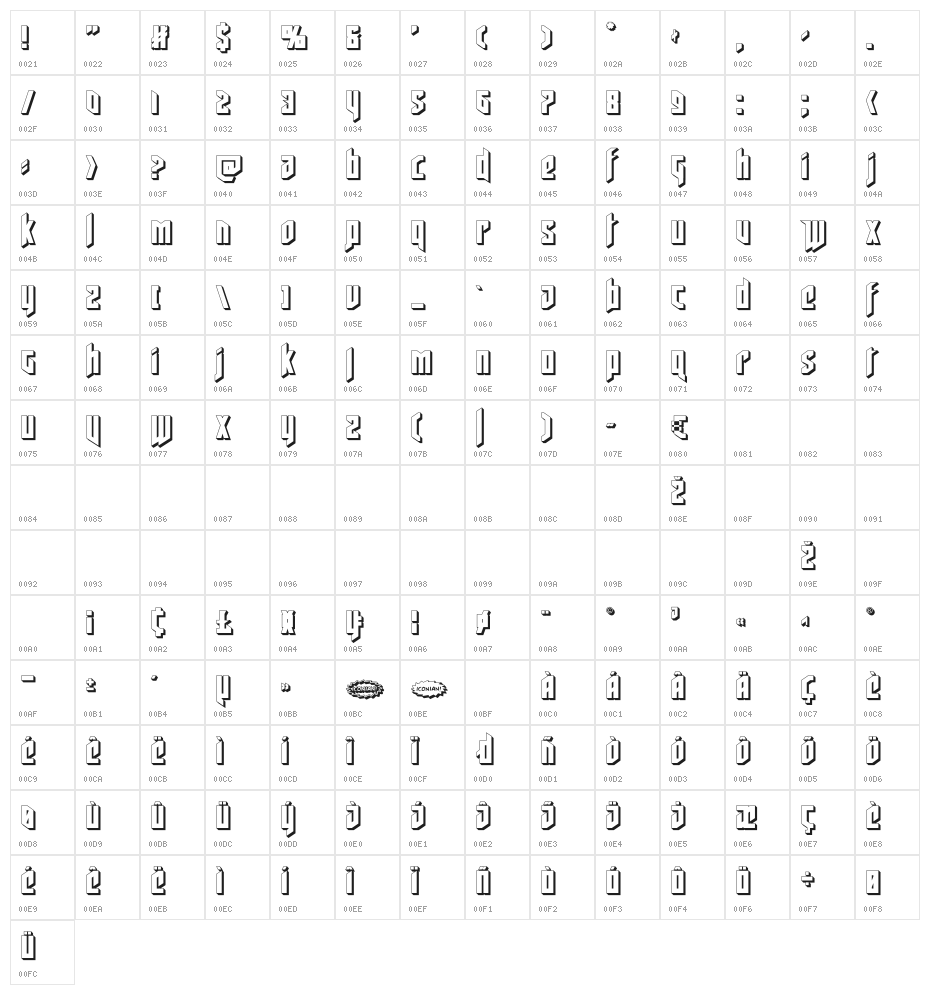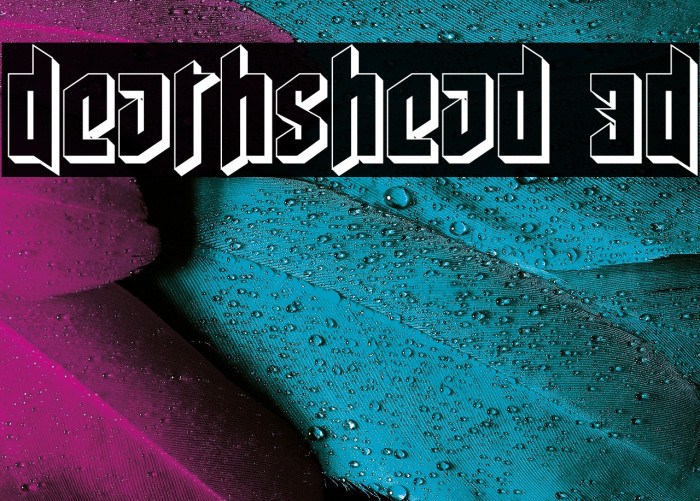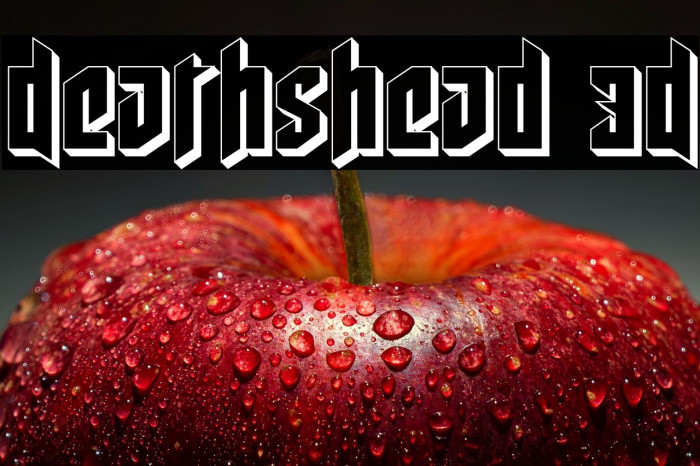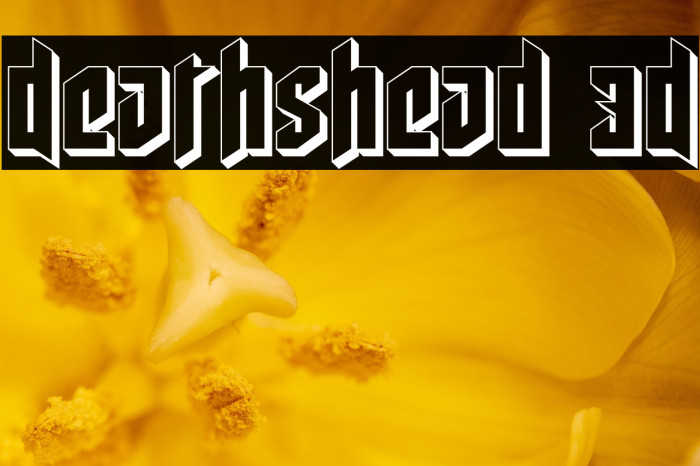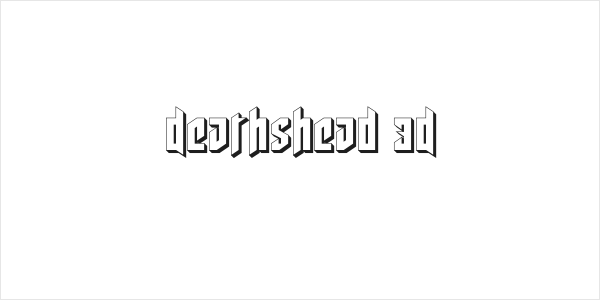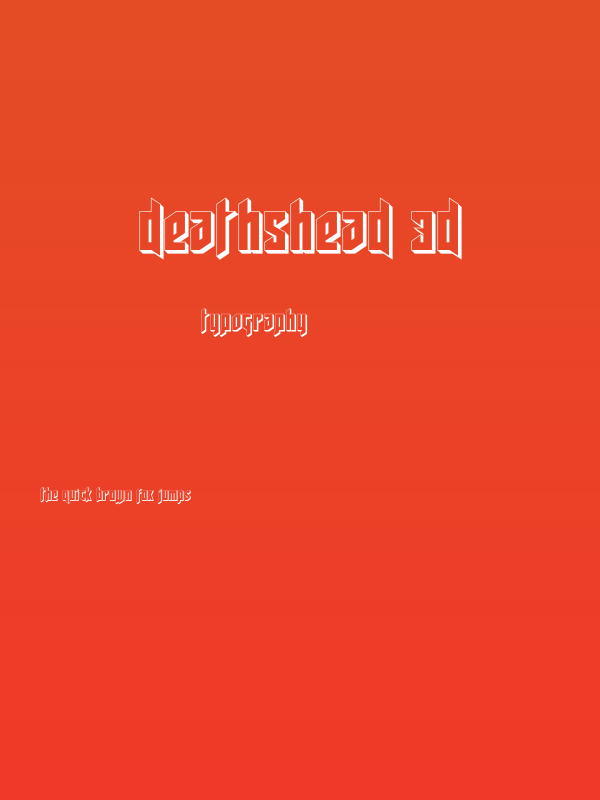
Deathshead 3D Font
Deathshead 3D Description
This font features a bold, three-dimensional design with a strong, angular structure. Each character is outlined with a shadow effect, giving it a striking, embossed appearance. The geometric shapes and sharp edges create a sense of depth and dimension, making it highly suitable for impactful visual statements. The uppercase and lowercase letters maintain a consistent style, while the numerals and special characters complement the overall aesthetic. This font is ideal for projects that require a bold and eye-catching display, such as posters, logos, and headlines.